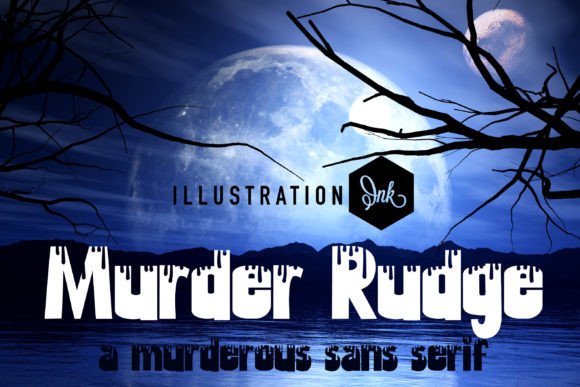
Unleash your dark creativity with Murder Rudge, the bone-chilling display font that drips with wicked charm. Its blocky structure and oozing tops evoke a macabre aesthetic, perfect for conjuring spine-tingling designs that leave a lasting impression.
Embark on a haunting journey with Murder Rudge, the font that transforms your words into chilling art. Its unique, dripping style adds an eerie touch to Halloween posters, digital designs, horror stickers, and t-shirt designs that demand attention. Unleash your imagination and explore the dark side of design with Murder Rudge.
Immerse yourself in the world of the macabre with Murder Rudge, the font that captures the essence of Halloween. Its dripping, oozy tops create a sense of suspense and unease, making it the perfect choice for conjuring up haunting designs. Bring your Halloween creations to life with Murder Rudge, the font that will send shivers down your spine.